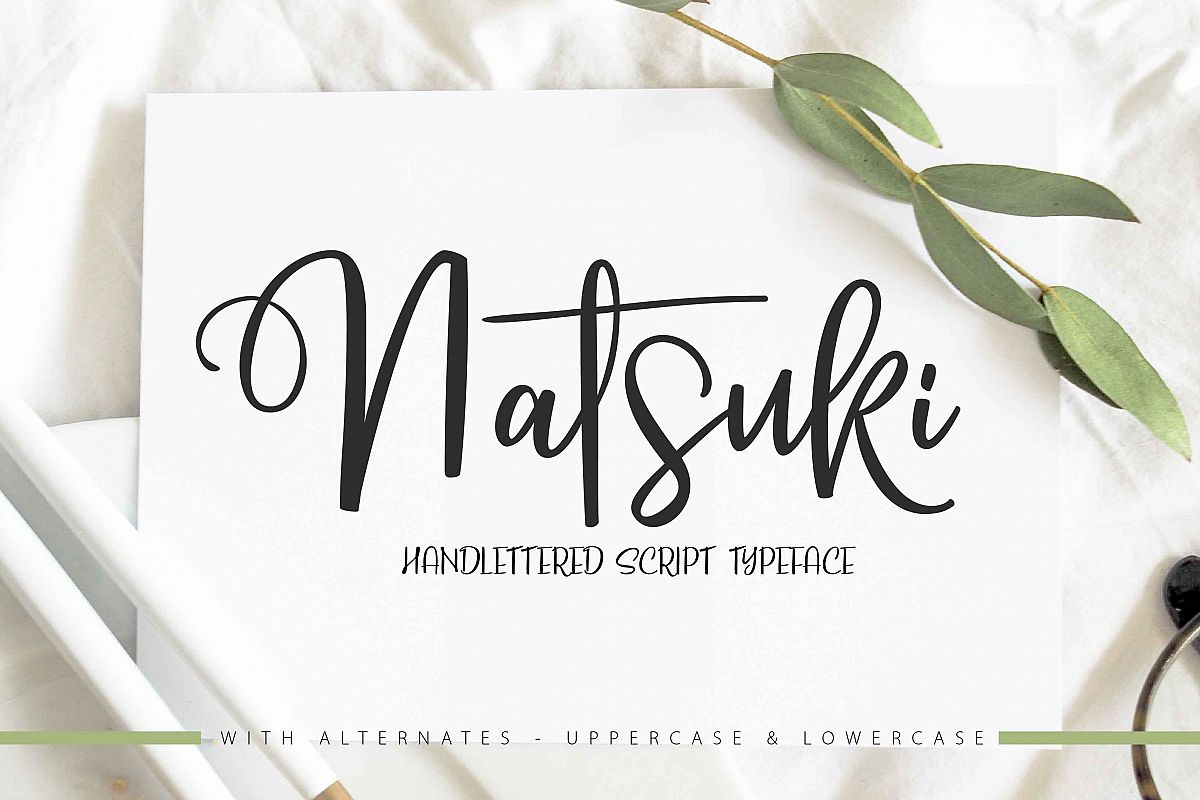
NATSUKI - Handlettered Script
NATSUKI is a beautiful Modern Handlettered font Typeface, This Font will look gorgeous on all your designs, wedding invites, branding materials, logo's, t-shirt, poster, business cards, quotes and all project design other.